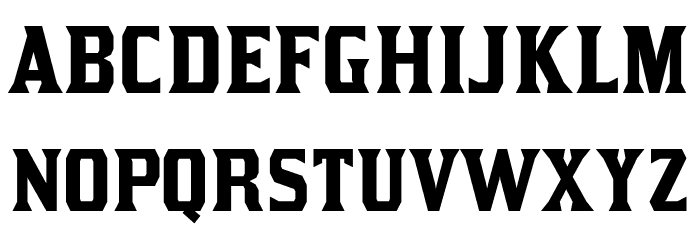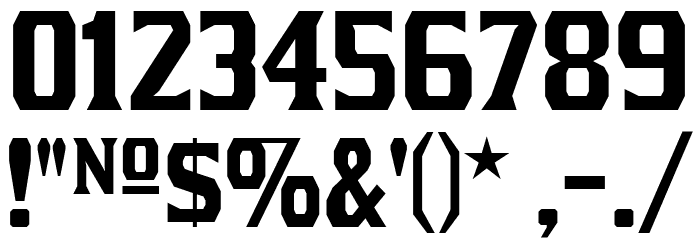
KirstyRg-Regular Font
This font features a bold and striking design with sharp, angular edges and a strong presence. The uppercase letters are particularly prominent, with a geometric style that conveys a sense of strength and modernity. The lowercase letters maintain the same boldness, ensuring consistency throughout the typeface. Numbers and special characters are equally robust, making this font versatile for various applications. The overall design is reminiscent of industrial or sports-themed aesthetics, suitable for impactful headlines or branding.
A bold, angular font with a strong, geometric style.
- Font: KirstyRg-Regular
- Proposed Projects: Ideal for sports branding, industrial-themed designs, posters, and impactful headlines.